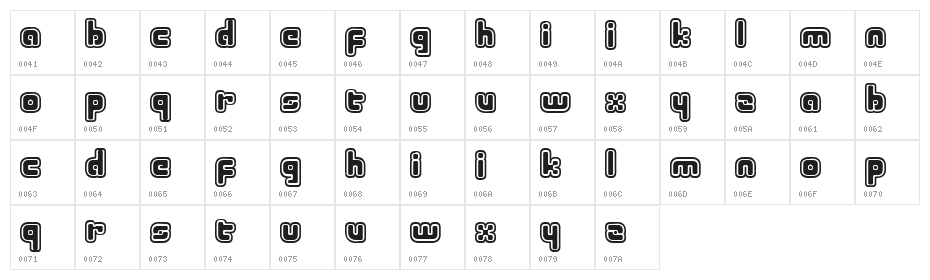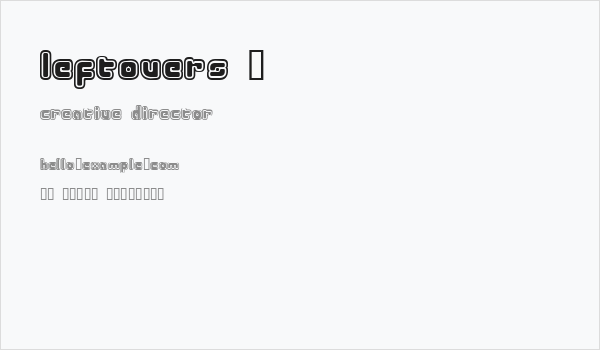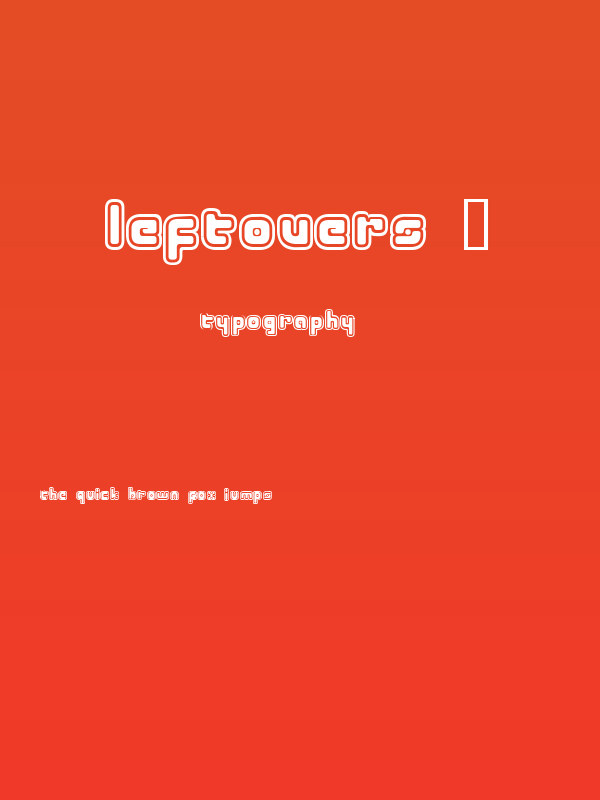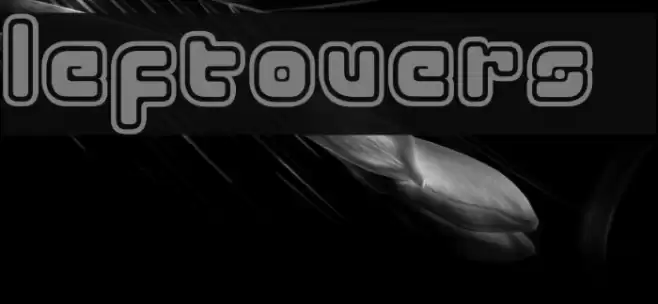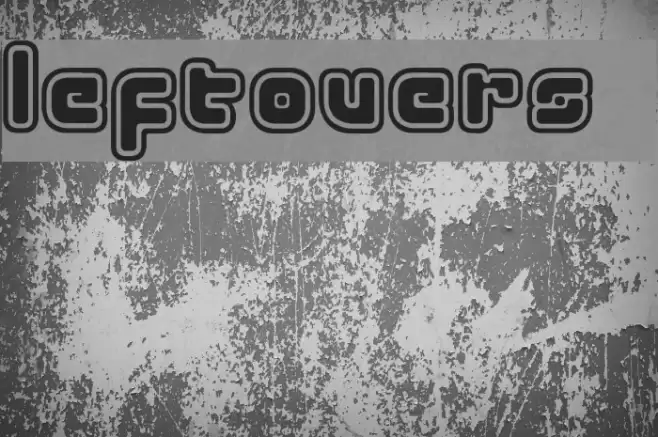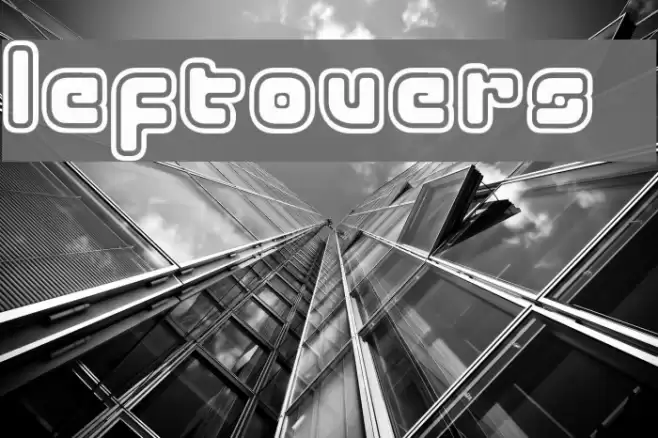
LeftOvers 4 Font
LeftOvers 4 Description
This font features a bold, outlined style with rounded edges, creating a playful and modern appearance. The characters are uniformly thick, giving a consistent and cohesive look across the alphabet. The design is highly geometric, with each letter maintaining a similar width and height, contributing to a balanced and harmonious visual effect. The font's unique outline adds a dimensional quality, making it stand out in various design applications. Its clean and structured form makes it suitable for both digital and print media, offering versatility in its use.
| Proposed Projects | Ideal for branding, posters, headlines, and digital media where a bold statement is needed. |